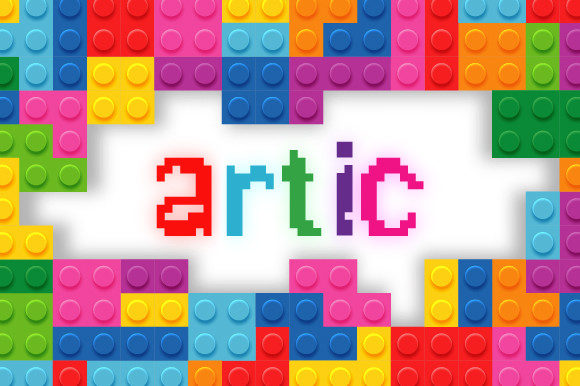
The Playful World of Artic Font: A Designer’s Delight
I still remember the time I was working on a children’s storybook project, and I was on a mission to find the perfect font. The book was about a group of adventurous friends exploring a magical kingdom, and I wanted a font that would match the playful and fun tone of the story. After hours of browsing through font libraries and testing out different options, I stumbled upon Artic Font. It was love at first sight! 🎉
An Honest Review of Artic Font
Artic Font is a playful and fun decorative font that is perfect for children’s projects. Here’s what I love about it:
- ✨ Unique and quirky design that adds a touch of personality to any project
- 🎉 Supports OpenType features, glyphs, and stylistic alternates, giving you plenty of creative options
While Artic Font is an amazing font, it’s not without its quirks. Here are a few things to keep in mind:
- 🤔 May not be suitable for formal or professional projects, as it’s quite playful and decorative
- ⚠️ Some characters may not work well at very small font sizes, so be sure to test it out before finalizing your design
The Story Behind Artic Font
Artic Font was designed by a team of creatives who wanted to create a font that would bring a touch of playfulness and fun to designs. Inspired by the Arctic landscape and the quirky characters that inhabit it, Artic Font is a unique and eye-catching font that’s perfect for kids’ projects and designs.
| Font Name | Artic Font |
| Author | muhammadfaisal40 |
| What is Artic Font best used for? | Artic Font is best used for children’s projects, such as storybooks, games, and playroom items. |
| Is Artic Font suitable for formal projects? | No, Artic Font is a playful and decorative font that’s not suitable for formal or professional projects. |
| Does Artic Font support OpenType features? | Yes, Artic Font supports OpenType features, glyphs, and stylistic alternates. |